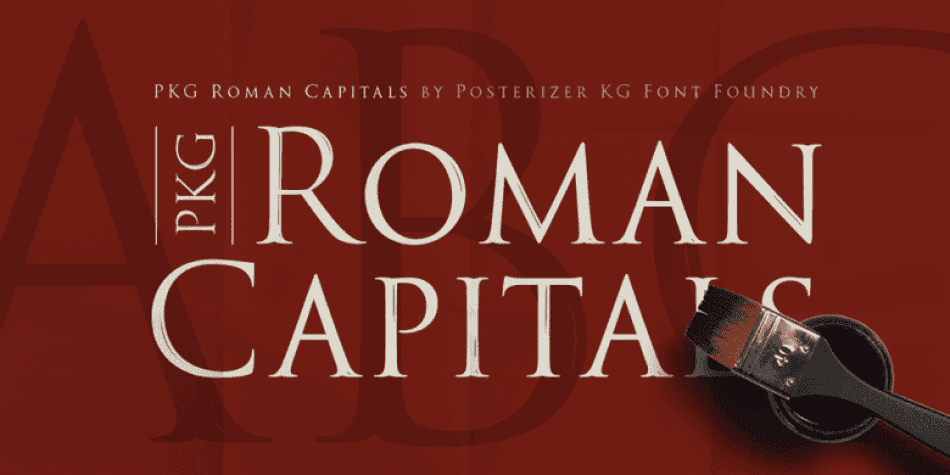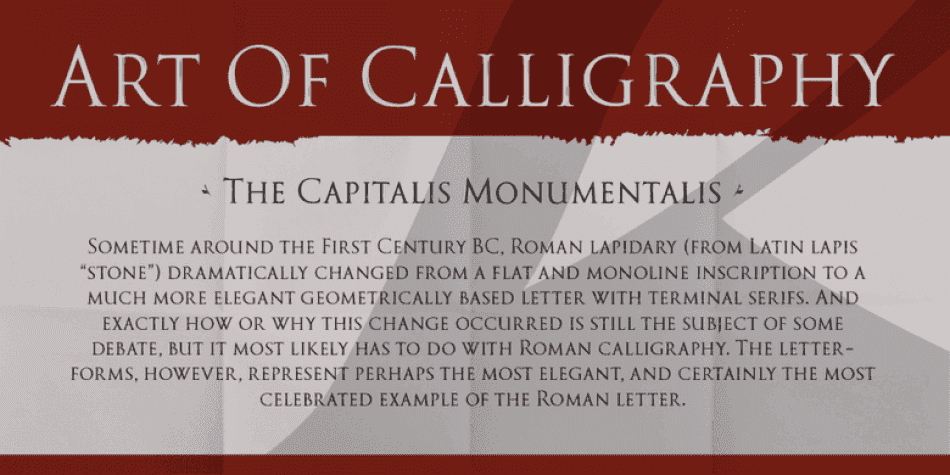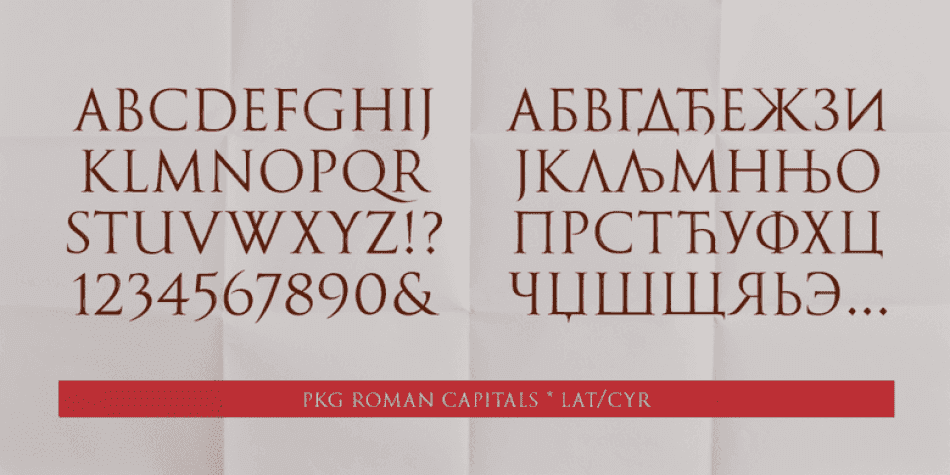
PKG Roman Capitals from KG are Posterizer Calligraphic Fonts inspired by Roman Square Capitals letterforms known variously as Capitalis Monumentalis, Inscriptional Capitals Elegant Capitals or Capitalis Quadrata from approximately the second century AD. All graphemes come from calligraphy books written using brush on traditional calligraphic stiles; all depict epigraphic monuments such as The Roman Pantheon, Trajan’s Column or Titus Arch as epigraphy monuments.